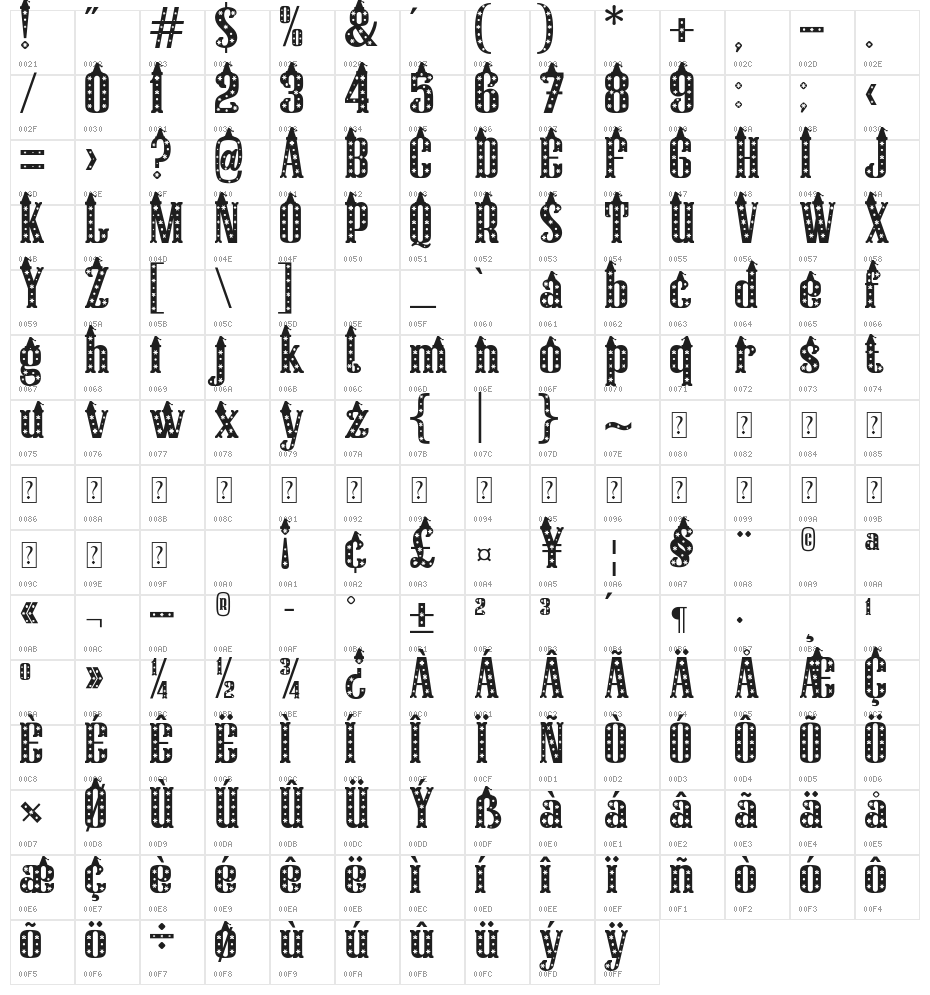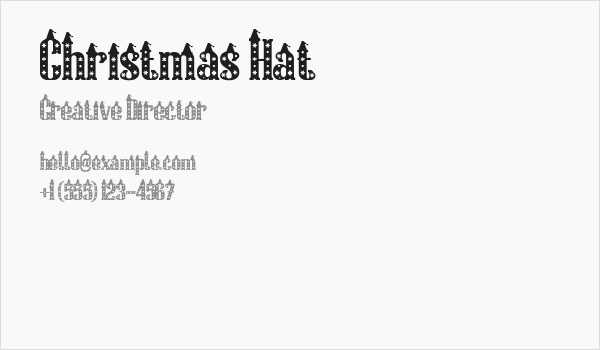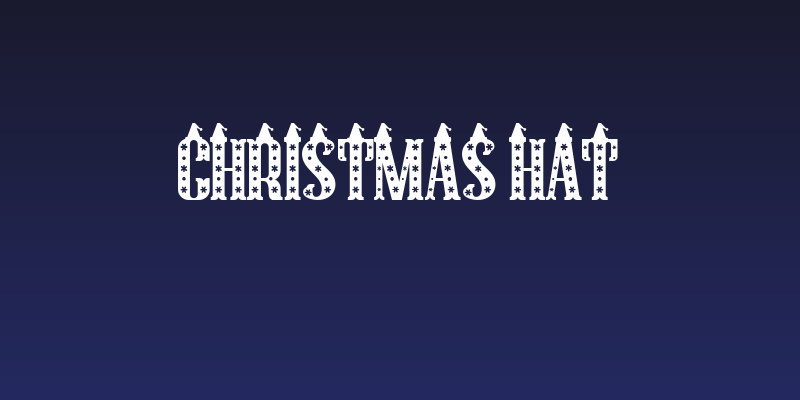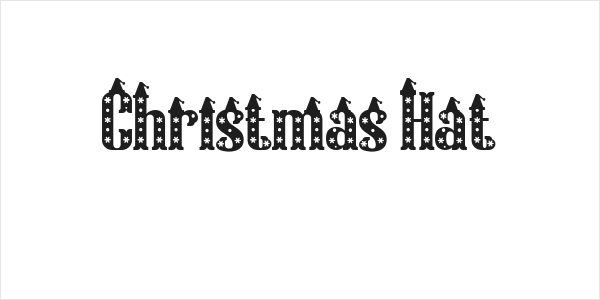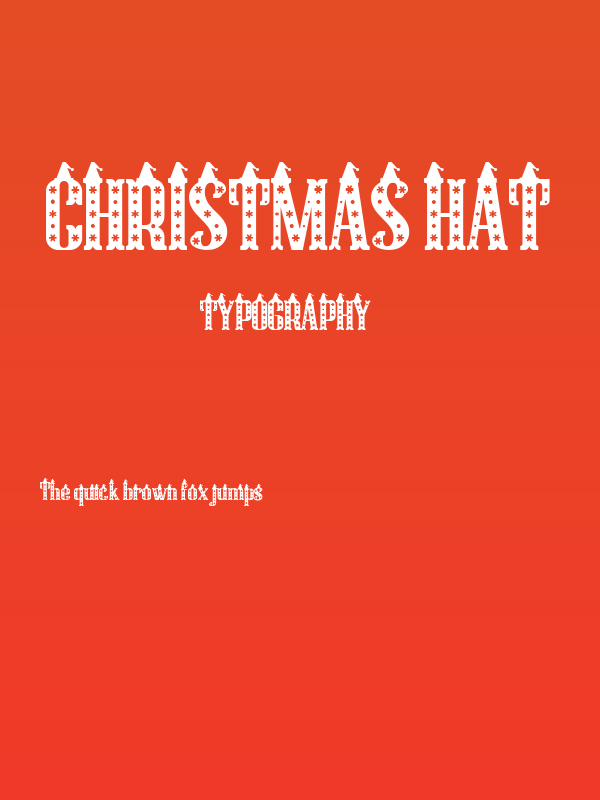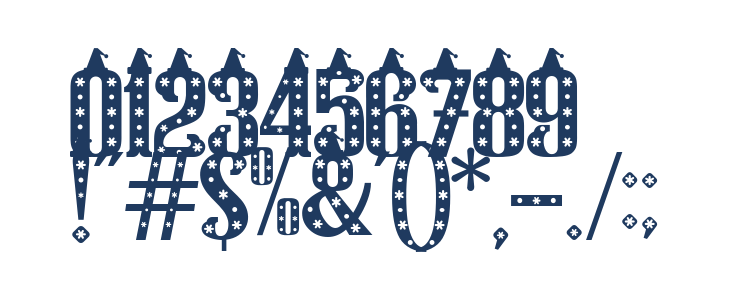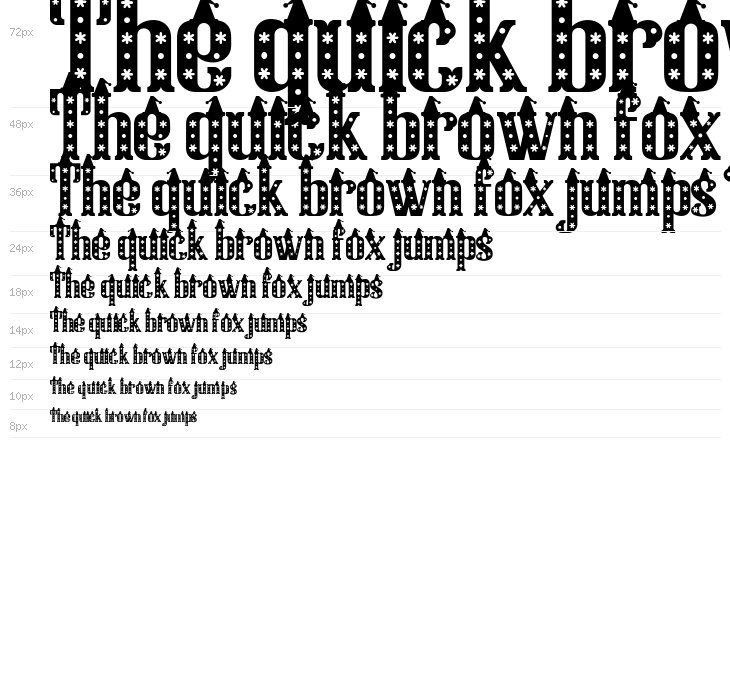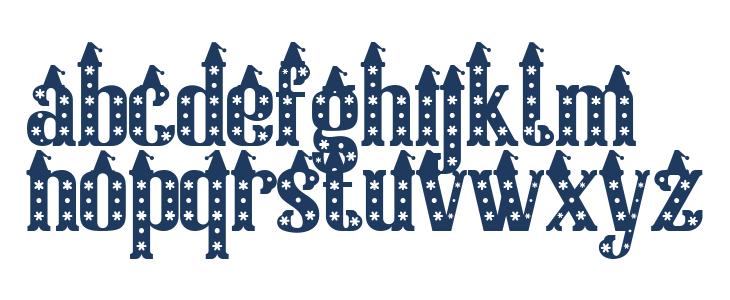
Christmas Hat Font
Christmas Hat Description
This decorative font features a festive design with each character adorned with small star-like shapes, reminiscent of a snowy Christmas theme. The uppercase letters are topped with a stylized hat-like shape, enhancing the holiday spirit. The font's bold and playful style makes it ideal for seasonal projects. The characters are evenly spaced, ensuring readability while maintaining a whimsical appearance. The numbers and special characters follow the same decorative pattern, making the font cohesive and versatile for various uses.
CHRISTMAS-HAT UPPERCASE
CHRISTMAS-HAT LOWERCASE
CHRISTMAS-HAT OTHER CHARS